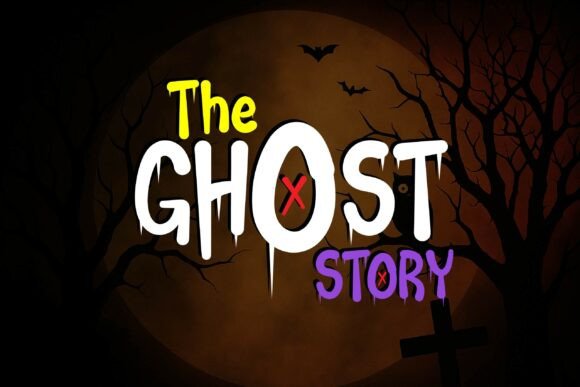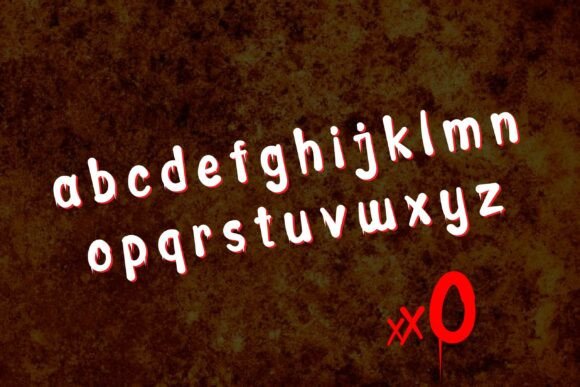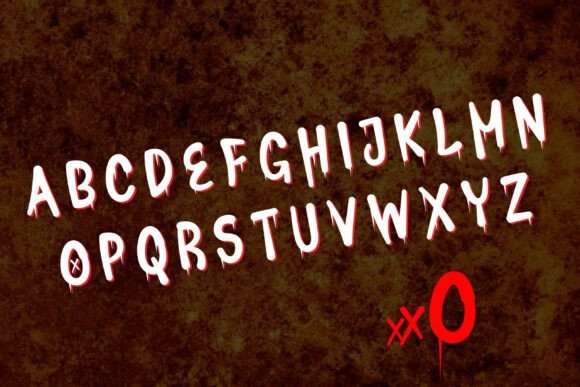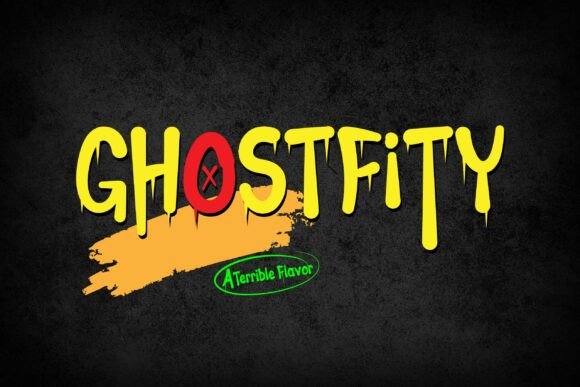
Unleash the Horror with Ghostfity Font: A Hauntingly Stylish Typeface
Are you a designer, craftsperson, or creative looking to add a touch of eeriness to your projects? Look no further than the Ghostfity Font, a uniquely stylish and hauntingly decorative typeface that’s perfect for creating chilling and dramatic visual experiences. With its bold, eerie flair, Ghostfity is ideal for horror-themed movie titles, cartoon or game names, spooky T-shirt designs, and more.
A Font that Embodies the Spirit of Horror
Ghostfity Font is designed to evoke fear, suspense, and a dark, mysterious atmosphere in any creative project. Its creepy curves and sinister style make it a must-have for anyone looking to add an unmistakably scary vibe to their work. Whether you’re a filmmaker, game developer, or craftsperson, Ghostfity Font is the perfect tool to help you create a haunting visual experience that will leave your audience on the edge of their seats.
Key Features of Ghostfity Font
So, what makes Ghostfity Font so special? Here are some of its key features:
- 96 distinct glyphs: With a wide range of glyphs to choose from, you can create unique and complex designs that will set your project apart.
- 95 characters: Ghostfity Font features a comprehensive set of characters, ensuring that you have everything you need to create stunning text-based designs.
- Versatile design: Whether you’re creating a horror-themed movie title or a spooky T-shirt design, Ghostfity Font is versatile enough to adapt to any creative project.
- Hauntingly stylish: With its creepy curves and sinister style, Ghostfity Font is the perfect tool to add a touch of eeriness to your designs.
Use Cases for Ghostfity Font
Ghostfity Font is perfect for a wide range of creative projects, including:
- Horror-themed movie titles: Add a touch of horror to your movie titles with Ghostfity Font’s bold, eerie flair.
- Cartoon or game names: Create a haunting and memorable name for your cartoon or game with Ghostfity Font.
- Spooky T-shirt designs: Design eye-catching and eerie T-shirt designs that will leave a lasting impression on your audience.
- Poster designs: Create haunting poster designs for horror movies, haunted houses, or other spooky events.
Why Choose Ghostfity Font?
So, why should you choose Ghostfity Font for your creative projects? Here are just a few reasons:
- Unique and stylish: Ghostfity Font is a one-of-a-kind typeface that’s sure to add a touch of eeriness to your designs.
- High-quality design: With its comprehensive set of glyphs and characters, Ghostfity Font is designed to deliver high-quality results.
- Versatile: Ghostfity Font can be used for a wide range of creative projects, from horror-themed movie titles to spooky T-shirt designs.
In conclusion, Ghostfity Font is a hauntingly stylish typeface that’s perfect for creating chilling and dramatic visual experiences. With its bold, eerie flair and comprehensive set of glyphs and characters, Ghostfity Font is a must-have for anyone looking to add a touch of horror to their creative projects. Whether you’re a designer, craftsperson, or creative, Ghostfity Font is the perfect tool to help you evoke fear, suspense, and a dark, mysterious atmosphere in your work.